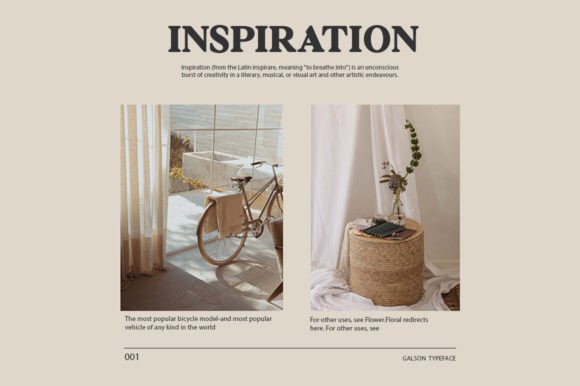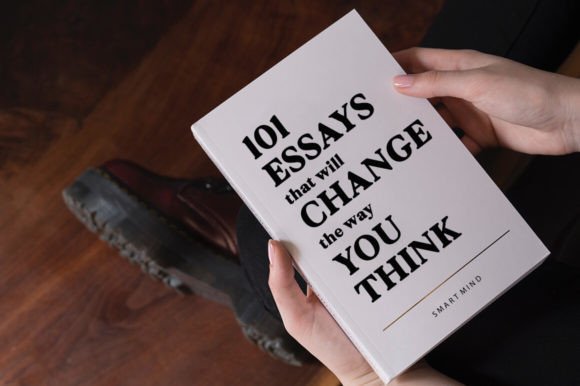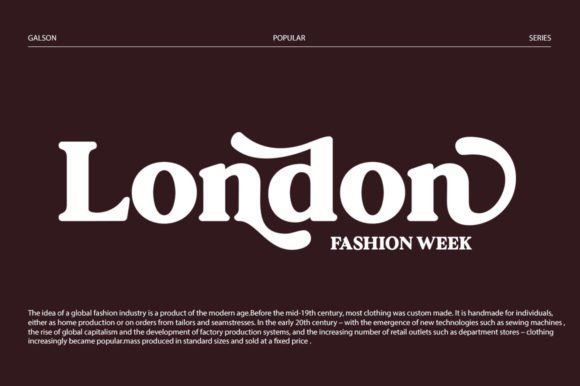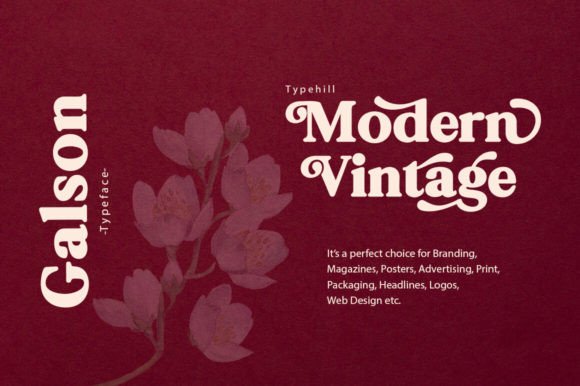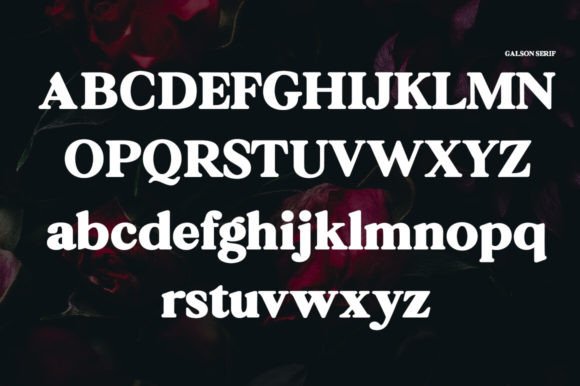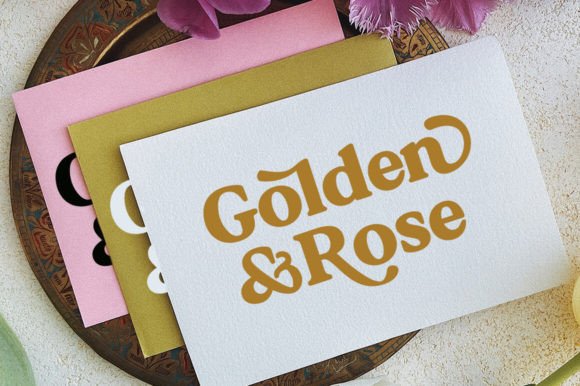
Galson Font: The Epitome of Elegance and Sophistication
In the realm of typography, a font can make or break the aesthetic appeal of a design. For designers and crafters seeking a typeface that exudes smoothness, cleanliness, and elegance, Galson Serif is an exceptional choice. This stunning font has garnered attention for its unique blend of modernity and classic style, making it an ideal selection for various formal applications.
Unveiling the Characteristics of Galson Font
Galson Serif is a typeface that effortlessly combines the essence of modernity with the sophistication of classic designs. Its smooth and clean lines make it a versatile font suitable for a wide range of projects. The distinctive features of Galson Font include:
- Smooth and Clean Lines: The font’s sleek design ensures that it remains legible and visually appealing, even at smaller sizes.
- Unique and Elegant: Galson Serif boasts a unique charm that sets it apart from more traditional typefaces, making it perfect for designers looking to add a touch of elegance to their work.
- Modern and Feminine: The font’s modern aesthetic is beautifully balanced with feminine touches, making it an excellent choice for projects targeting a female audience or requiring a touch of sophistication.
- Sensual and Glamorous: Galson Serif’s design elements evoke a sense of glamour and sensuality, ideal for luxury brands, fashion magazines, or high-end product packaging.
- Simple and Highly Legible: Despite its elegant appearance, the font remains simple and easy to read, ensuring that the message is conveyed clearly and effectively.
Applications of Galson Font
The versatility of Galson Serif makes it suitable for a myriad of applications, including:
- Invitations and Greeting/Wedding Cards: Add a touch of class and sophistication to your invitations and cards with Galson Font.
- Labels and Packaging: Elevate your product packaging and labels with a font that communicates luxury and elegance.
- Menus and Stationery: Galson Serif is perfect for restaurant menus, letterheads, and other stationery items that require a professional yet stylish look.
- Logos and Branding: For businesses in the fashion, beauty, or luxury sectors, Galson Font can be a valuable asset in creating a brand identity.
- Fashion and Makeup: Design stunning fashion magazines, makeup tutorials, or promotional materials with a font that speaks to style and sophistication.
- Romantic Novels and Magazines: The elegant and sensual nature of Galson Serif makes it an excellent choice for romantic novels, magazines, and other literary works.
- Books and Letterpress: Enhance the reading experience with a font that is both pleasing to the eye and easy to read.
One of the standout features of Galson Font is its PUA (Private Use Area) encoding. This means that users can easily access a wide range of glyphs and ligatures, allowing for greater creativity and flexibility in design projects. With PUA encoding, designers can:
- Access Additional Glyphs: Unlock a variety of alternative characters and glyphs to add uniqueness to your typography.
- Utilize Ligatures: Take advantage of ligatures to create visually appealing and harmonious text.
- Enhance Typography: With the ability to access a broader range of typographic elements, designers can significantly enhance the aesthetic appeal of their work.
Galson Font, with its smooth lines, clean design, and elegant aesthetic, presents a compelling option for designers and crafters. Its versatility, combined with PUA encoding for easy access to glyphs and ligatures, makes it an invaluable resource for a wide array of projects. Whether you’re working on luxury branding, fashion magazines, romantic novels, or elegant invitations, Galson Serif offers the perfect blend of modernity and classic sophistication to elevate your designs.